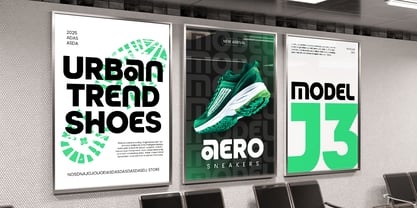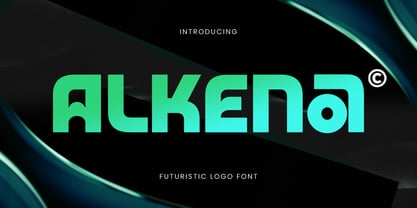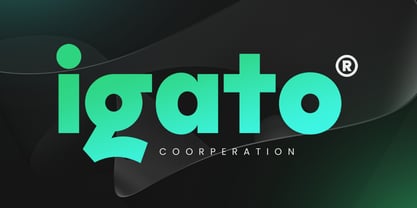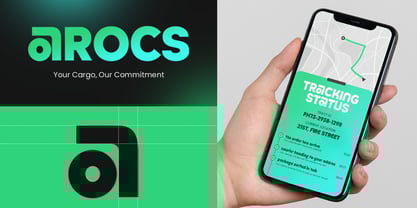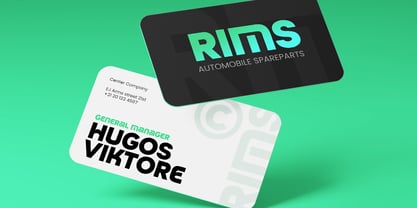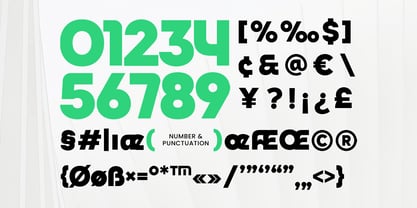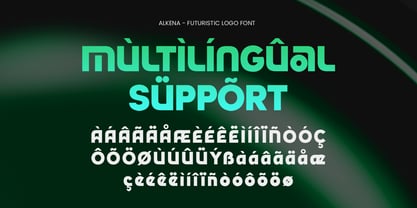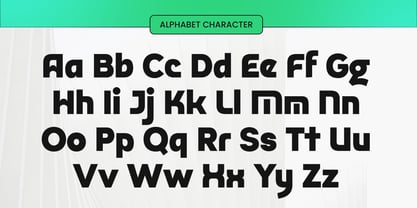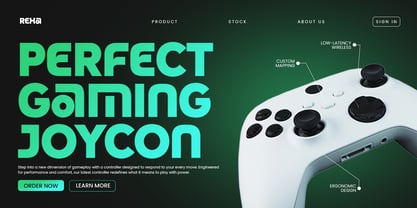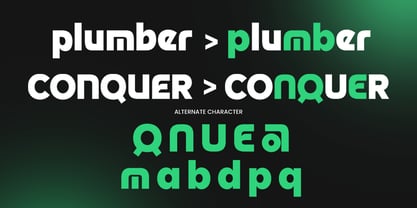
Aneka - Futuristic Logo Font
Aneka is a futuristic logo font designed with precision, minimalism, and innovation in mind. With its clean lines, geometric structure, and modern edges, Aneka is perfect for branding projects, tech startups, esports teams, and sci-fi designs that demand a bold, forward-thinking look.
Each character has been carefully constructed to maintain visual clarity while delivering a sleek and impactful identity. Whether you're designing a digital product interface or a high-tech brand logo, Aneka gives your work that cutting-edge edge.
Push the boundaries of your design with Aneka—a font made for the future.
Aneka – Futuristic Logo Font Features
Clean geometric futuristic style
Ideal for tech branding, esports, and digital products
Punctuation, numbers, and symbols included
Uppercase and lowercase letters
OpenType features for advanced styling
Multilingual support for
Afrikaans, Albanian, Asu, Basque, Bemba, Bena, Breton, Chiga, Cornish, Dutch, English, Estonian, Filipino, Finnish, Friulian, Galician, German, Gusii, Indonesian, Irish, Italian, Kabuverdianu, Kalenjin, Kinyarwanda, Luo, Luxembourgish, Luyia, Machame, Makhuwa-Meetto, Makonde, Malagasy, Manx, Morisyen, North Ndebele, Nyankole, Oromo, Portuguese, Quechua, Romansh, Rombo, Rundi, Rwa, Samburu, Sango, Sangu, Scottish Gaelic, Sena, Shambala, Shona, Soga, Somali, Spanish, Swahili, Swedish, Swiss, and more.
Step into tomorrow with Aneka—a logo font that speaks the language of the future.
Alkena